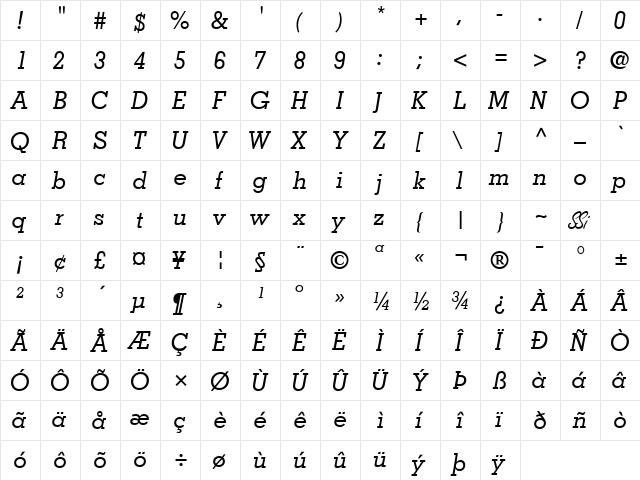
Jaak SSi Italic
Design Context for Jaak SSi Typeface
Jaak SSi is a composed and adaptable typeface that performs quietly and consistently across a wide range of design contexts. Its italic angle brings a sense of urgency and motion to the letterforms.
Pro Tip: Use Jaak SSi for emphasis, pull quotes, and subheadings where its slanted energy can add rhythm to the layout.